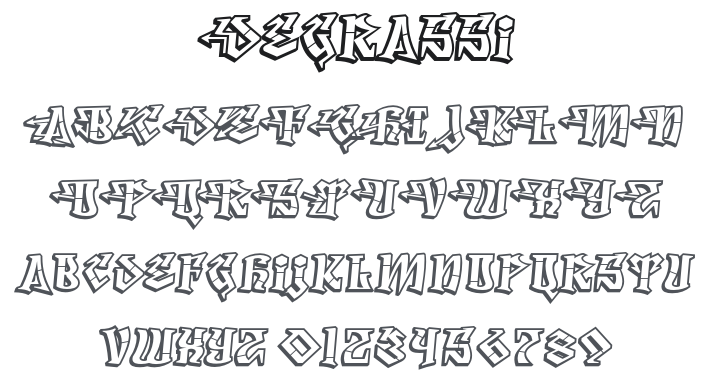
Degrassi Font Family
About Degrassi
Degrassi is a deliberately wack, amateur graffiti display typeface — bold, scraggly letterforms that look like they were sprayed by someone who just picked up a can for the first time, with wobbly lines and cheerful incompetence baked into every stroke. Three layerable files allow colourful shadow effects. Perfect for urban street culture designs, comedy graffiti themes, punk zines, skateboard graphics, and any headline that celebrates gloriously unskilled, rebellious energy.